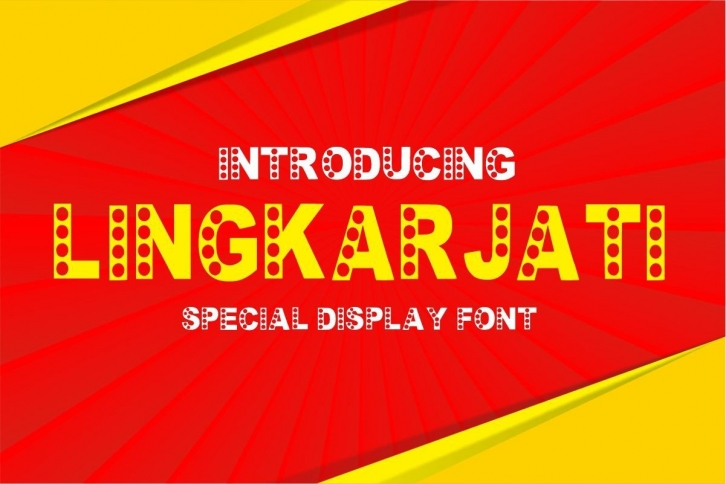
Lingkarjati is a creative and eye-catching display font. Whether you’re using it for promo designs, digital designs, clothes, presentations, or screen printing designs, this font is the perfect choice.